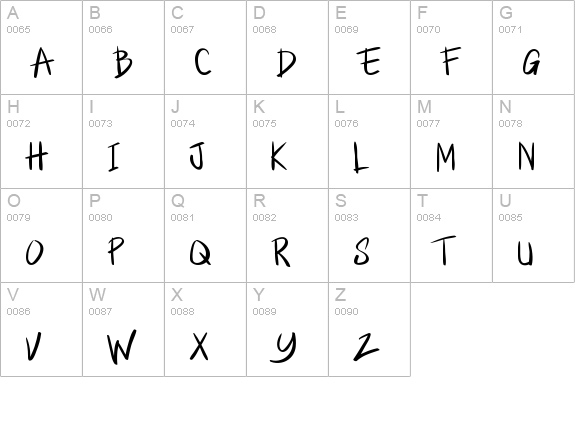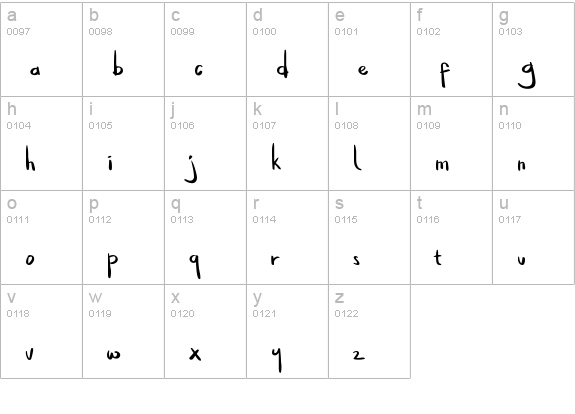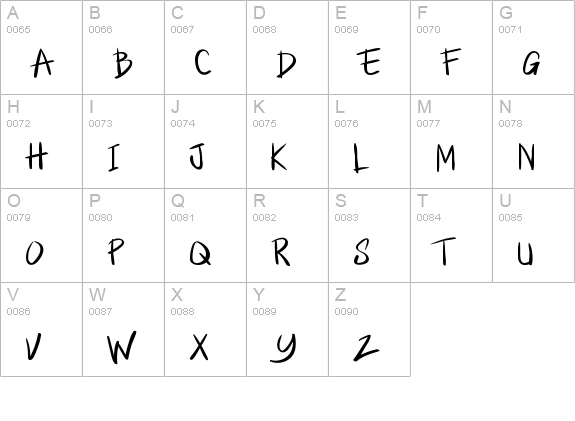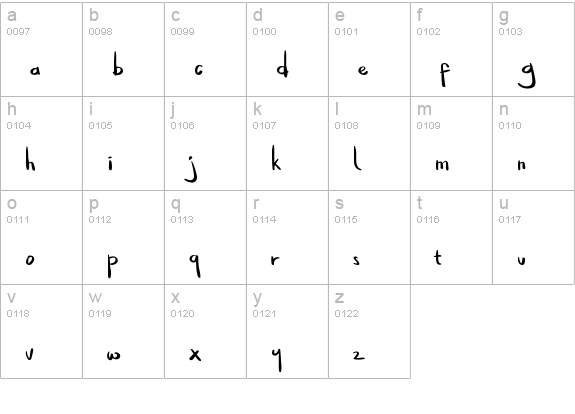
Little Jack Font Details
Little Jack font is a charming and playful typeface that exudes a sense of whimsy and delight. With its rounded edges and fun, quirky shapes, this font is perfect for adding a touch of lightheartedness to any project. Whether you're designing a birthday invitation, creating a logo for a children's brand, or crafting a greeting card, Little Jack font is sure to bring a smile to your audience's face.